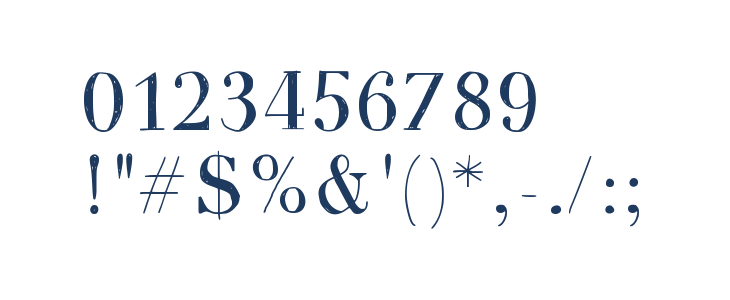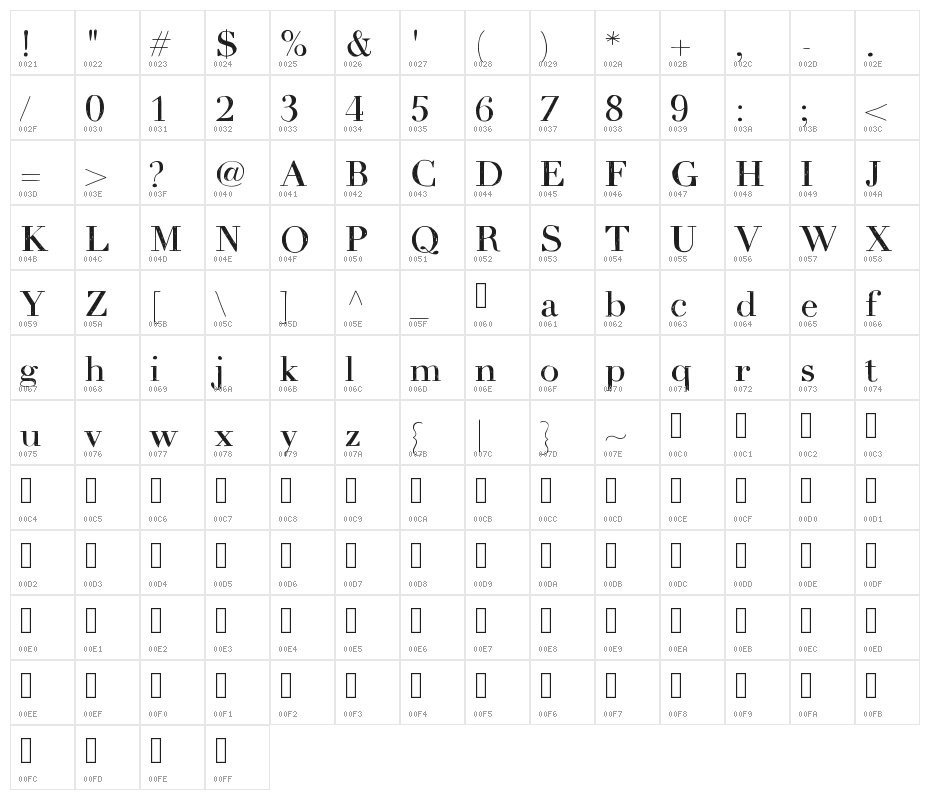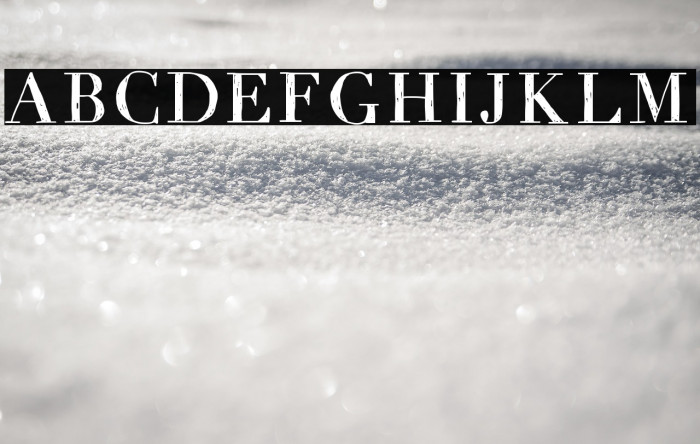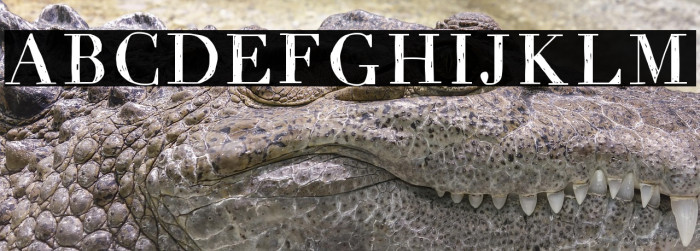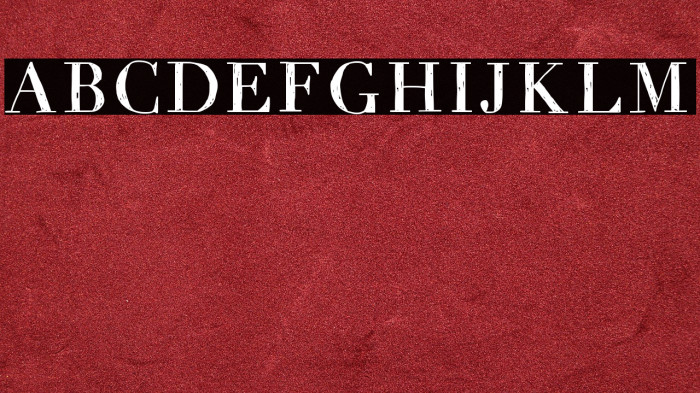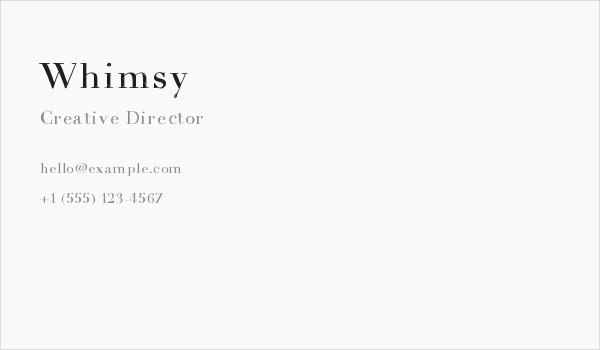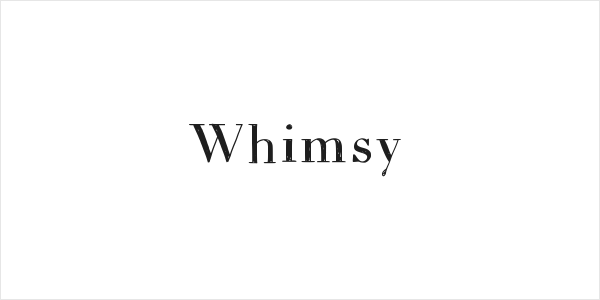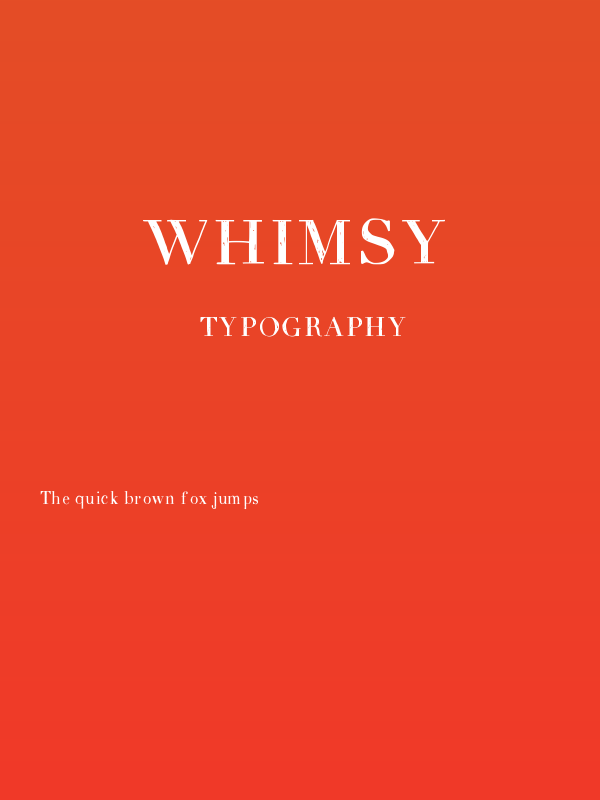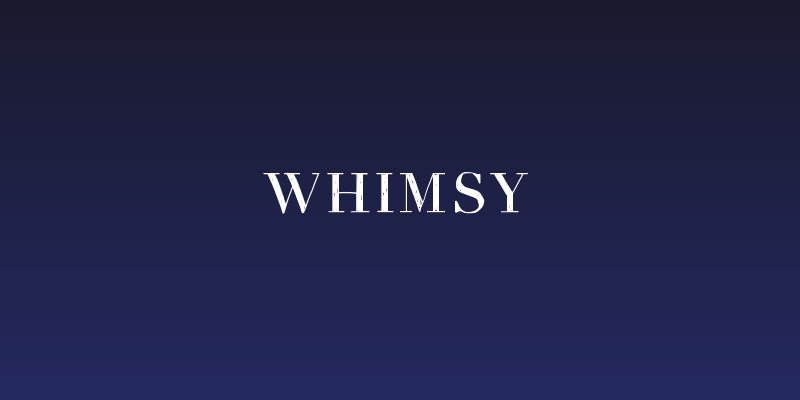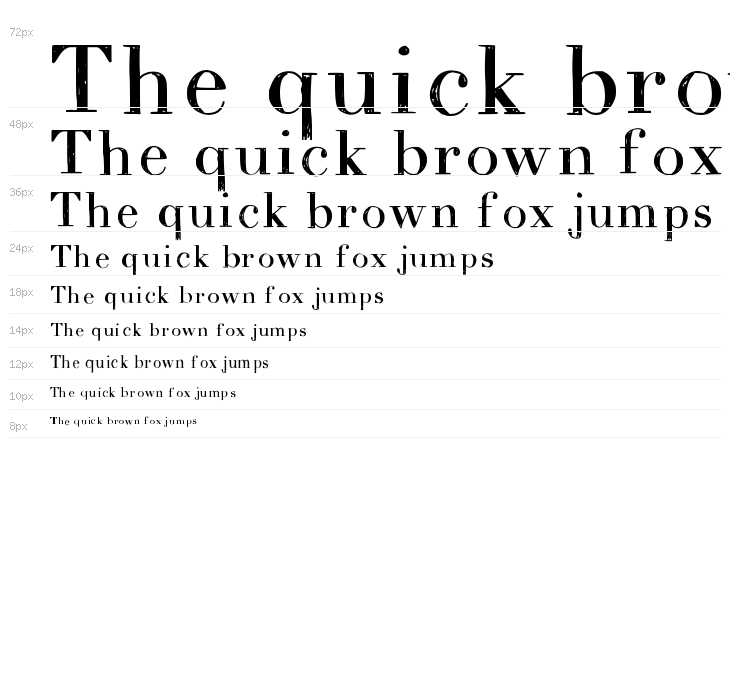
Whimsy Font
Whimsy Description
This font features a distressed, textured appearance, giving it a vintage and rustic feel. The letters are serifed, with a classic structure that is slightly weathered, adding character and uniqueness. The uppercase and lowercase letters maintain a consistent style, with the serifs providing a traditional touch. The numbers and special characters follow the same design, ensuring a cohesive look across all elements. The texture within the characters creates a sense of depth and interest, making it suitable for projects that require a handcrafted or aged aesthetic.
| Proposed Projects | Ideal for vintage-themed designs, posters, branding for artisanal products, and any project needing a rustic, handcrafted look. |